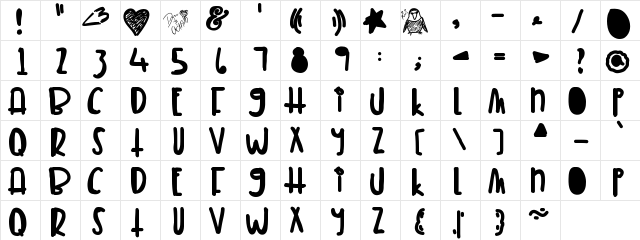
TunaMelt Medium Free Font
TunaMelt Medium
Design Context for TunaMelt
TunaMelt is a composed and adaptable typeface that performs quietly and consistently across a wide range of design contexts.